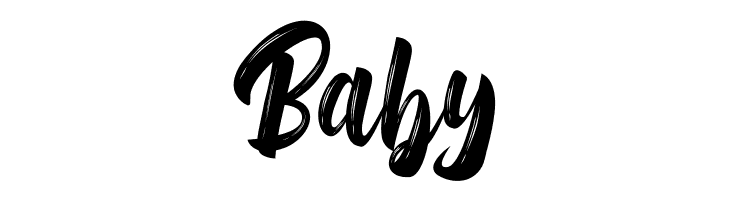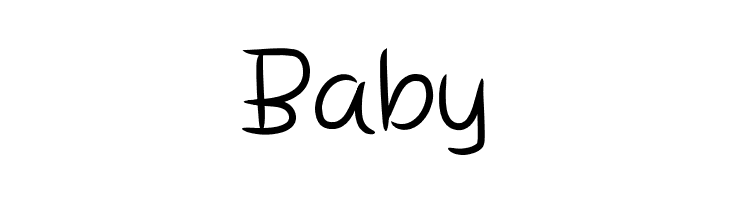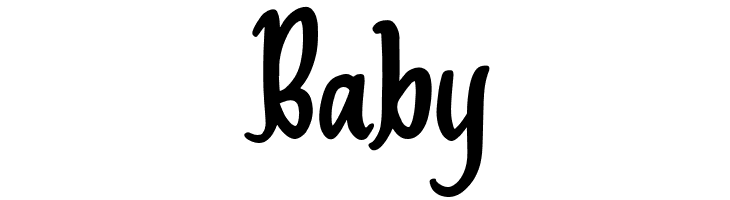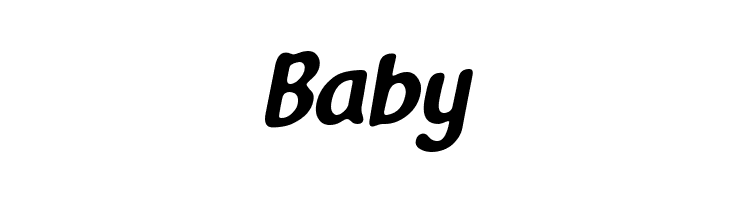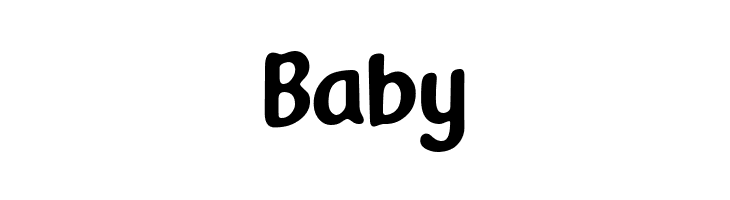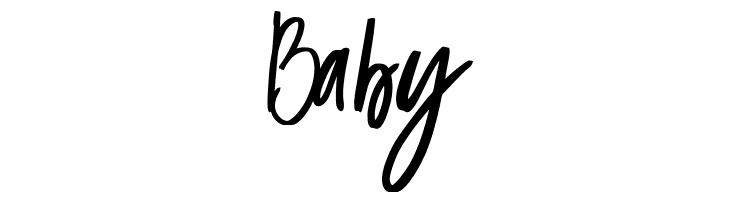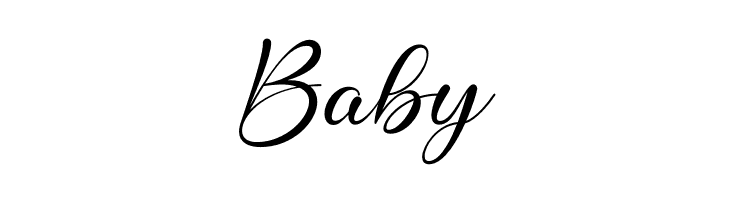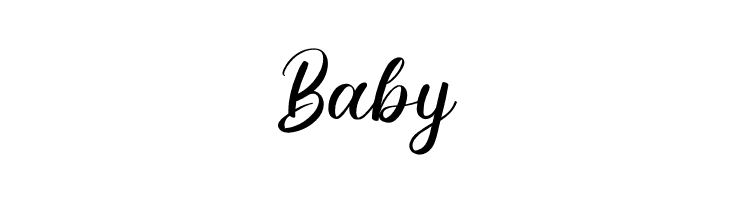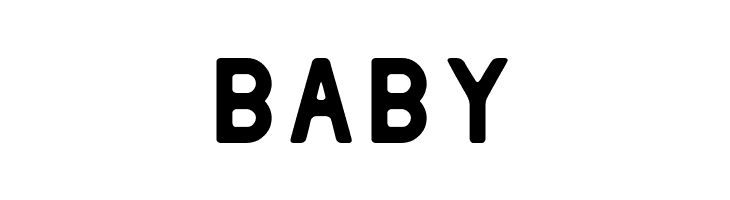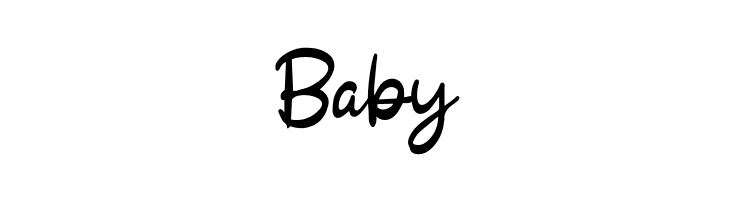
( Fonts by Khurasan - Syaf Rizal - Personal-use only. For commercial use please contact owner. ) A lively handwritten font with fluid strokes and a playful style. Download 158 Downloads@WebFont
( Fonts by Khurasan - Syaf Rizal - Personal-use only. For commercial use please contact owner. ) A dynamic handwritten font with fluid, expressive strokes. Download 29 Downloads@WebFont
( Fonts by DmLetter31 - Dimas Prasetyo - Personal-use only. For commercial use please contact owner. ) A playful, bold handwritten font with flowing, energetic letterforms. Download 93 Downloads@WebFont
( Fonts by Md Shohail Bhuian - Personal-use only. For commercial use please contact owner. ) A playful, hand-drawn font with tall, narrow letters and a whimsical style. Download 48 Downloads@WebFont
( Fonts by Sudarman Mulka - Personal-use only. For commercial use please contact owner. ) A bold, dynamic script font with flowing, cursive letters. Download 38 Downloads@WebFont
( Fonts by Octotype - www.foundmyfont.com - Personal-use only. For commercial use please contact owner. ) A classic, elegant script font with flowing cursive letters and intricate flourishes. Download 508 Downloads@WebFont
( Fonts by Mr Letters - https://www.creativefabrica.com/designer/mrletters/ - Personal-use only. For commercial use please contact owner. ) A sophisticated script font with flowing, cursive strokes and elegant design. Download 1485 Downloads@WebFont
( Fonts by Mr Letters - Personal-use only. For commercial use please contact owner. ) An elegant script font with flowing, decorative characters. Download 35 Downloads@WebFont
( Fonts by Situjuh Nazara - 7ntypes.com - Personal-use only. For commercial use please contact owner. ) A playful, rounded font with a hand-drawn, whimsical style. Download 98 Downloads@WebFont
( Fonts by Situjuh Nazara - 7ntypes.com - Personal-use only. For commercial use please contact owner. ) A playful, handwritten italic font with bold, rounded strokes. Download 328 Downloads@WebFont
( Fonts by Garisman Studio - Risman Ginarwan - Personal-use only. For commercial use please contact owner. ) A playful, handwritten font with smooth curves and a whimsical style. Download 45 Downloads@WebFont
( Fonts by Garisman Studio - Risman Ginarwan - Personal-use only. For commercial use please contact owner. ) A playful and whimsical font with rounded, elongated letterforms. Download 69 Downloads@WebFont
( Fonts by Amarlettering - Takiy - Personal-use only. For commercial use please contact owner. ) A graceful and sophisticated script font with flowing, cursive letters. Download 20 Downloads@WebFont
( Fonts by Balpirick Studio - https://www.creativefabrica.com/designer/balpirick/ref/308299/ - Personal-use only. For commercial use please contact owner. ) A playful, casual handwritten font with dynamic strokes. Download 62 Downloads@WebFont
( Fonts by wep - Wahyu Eka Prasetya - Personal-use only. For commercial use please contact owner. ) A bold, decorative font with a unique stencil-like design and creative use of negative space. Download 39 Downloads@WebFont
( Fonts by Agni Ardi Rein Prasetyo - Personal-use only. For commercial use please contact owner. ) A lively, cursive font with a handwritten touch and elegant flow. Download 30 Downloads@WebFont
( Fonts by Fiqiart - Fiqi Febriyanto - Personal-use only. For commercial use please contact owner. ) An elegant, flowing script font with decorative swashes and high contrast. Download 39 Downloads@WebFont
( Fonts by Blue Studio09 - Personal-use only. For commercial use please contact owner. ) A graceful and elegant script font with flowing, cursive characters. Download 68 Downloads@WebFont
( Fonts by Debut Studio ) A playful, handwritten font with smooth, flowing lines and a casual style. Download 93 Downloads@WebFont
( Fonts by Debut Studio - Ari Fadli - creativemarket.com/debutstudio - Personal-use only. For commercial use please contact owner. ) A bold, brush-style script font with dynamic, fluid strokes. Download 585 Downloads@WebFont
( Fonts by niyos - Nur Huda - Personal-use only. For commercial use please contact owner. ) A playful and elegant handwritten script font with bold, flowing characters. Download 46 Downloads@WebFont
( Fonts by Bluestype Studio - Jefri Dwi Alfatah - Personal-use only. For commercial use please contact owner. ) A flowing, cursive font with elegant, interconnected strokes. Download 30 Downloads@WebFont
( Fonts by Winarko - WinType - Personal-use only. For commercial use please contact owner. ) A bold, playful handwritten font with rounded strokes and a dynamic slant. Download 53 Downloads@WebFont
( Fonts by Kevin Gusti Arian - Personal-use only. For commercial use please contact owner. ) A bold, rounded font with a modern and clean design. Download 107 Downloads@WebFont
( Fonts by Pradipta Creative - Diki Pradipta Tri Atmojo - Personal-use only. For commercial use please contact owner. ) A playful, handwritten font with medium contrast and casual style. Download 42 Downloads@WebFont
( Fonts by Letterena Studios - letterena.com - Personal-use only. For commercial use please contact owner. ) A modern, elegant script font with flowing, graceful strokes. Download 31 Downloads@WebFont
( Fonts by Letterena Studios - letterena.com - Personal-use only. For commercial use please contact owner. ) An elegant, flowing script font with dynamic, interconnected letterforms. Download 28 Downloads@WebFont